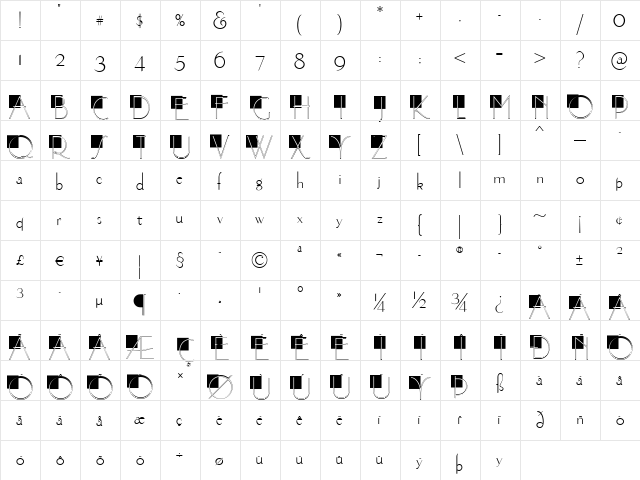
WashingtonSquareNF Regular
Design Context for WashingtonSquareNF Typeface
WashingtonSquareNF is a composed and adaptable typeface that performs quietly and consistently across a wide range of design contexts.